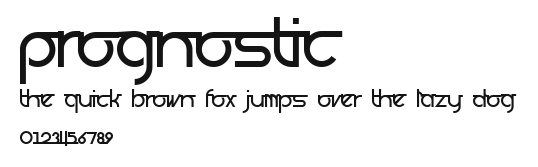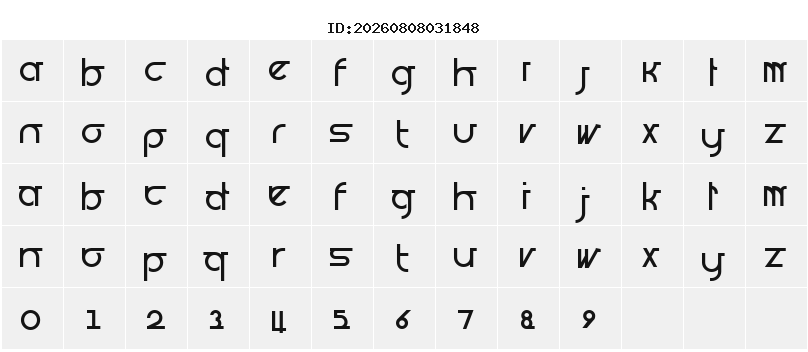
Prognostic Preview
• Font Name: Prognostic
• Full Font Name: Prognostic
• Designer: Måns Grebäck
• Manufacturer: Måns Grebäck
About Prognostic.ttf
Prognostic.ttf is a modern, elegant sans-serif font designed for ultimate readability and visual harmony. Perfect for branding, headlines, web design, and print materials.